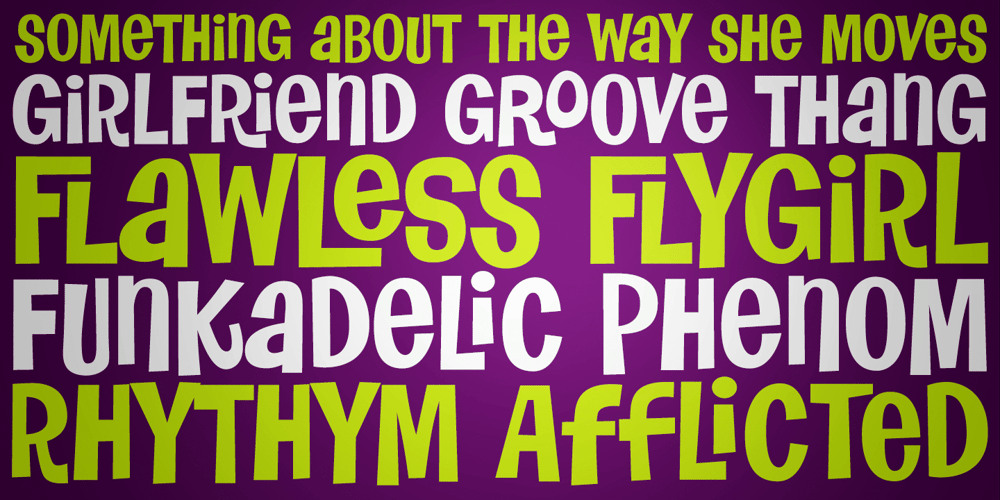
Flawless Flygirl PB Font Family was designed by Phil Bracco and published by Pink Broccoli. Flawless Flygirl PB contains 1 styles and family package options. Flawless Flygirl is a quirky sans-serif font inspired by the titling sequence from the 1964 film, “The World of Henry Orient”. Fun and full of personality, it is one of those lettering styles that was a joy to flesh out and make into a typeface filled with double letter ligature alternates to keep the typesetting weird and wonderful. With a pseudo unicase character set, and offbeat letter weighting, Flawless Flygirl is fun to typeset, with ligature combinations that are pleasant surprises. You’ll find this Flawless Flygirl is ready to dance to the beat of your designs.